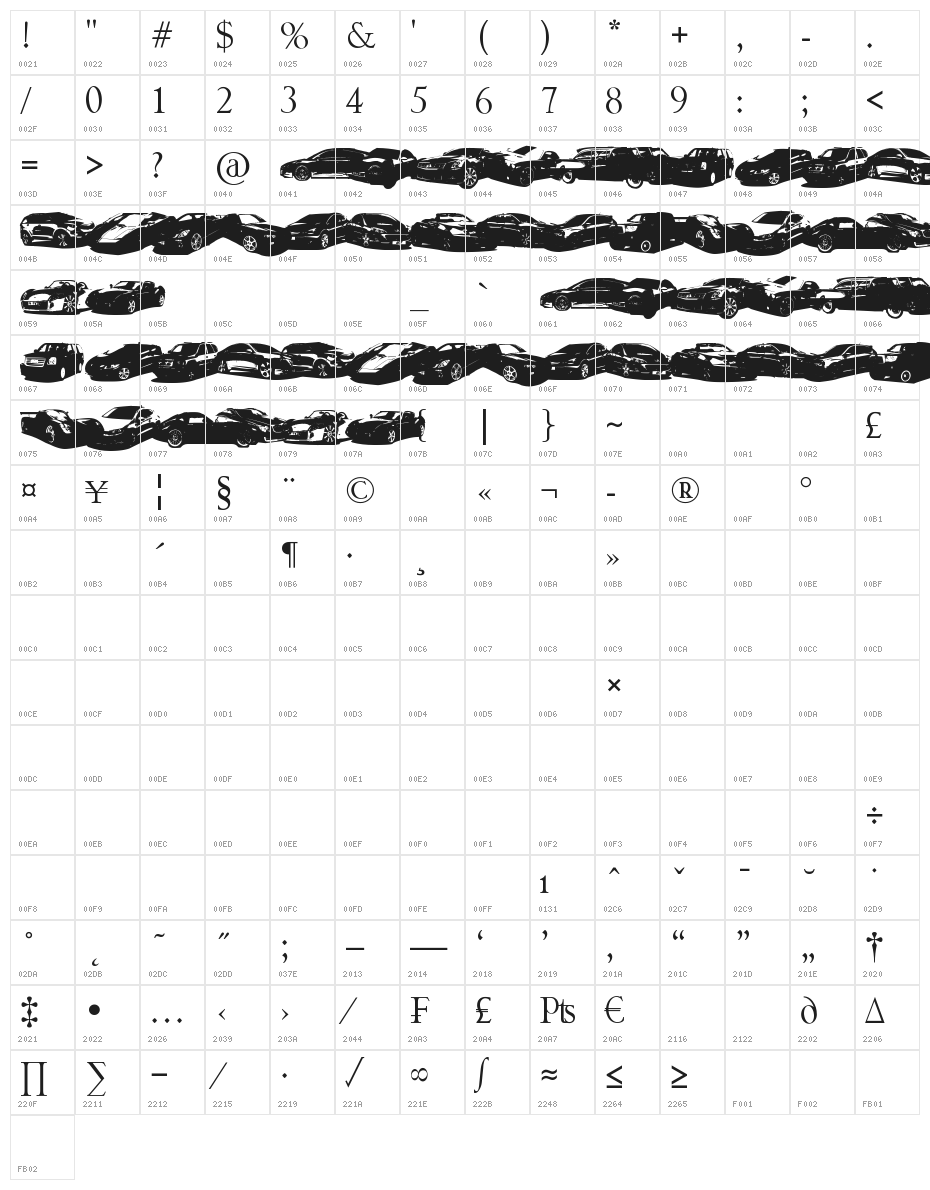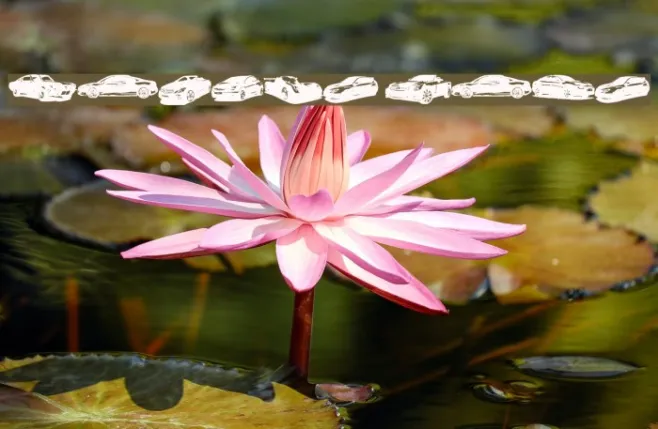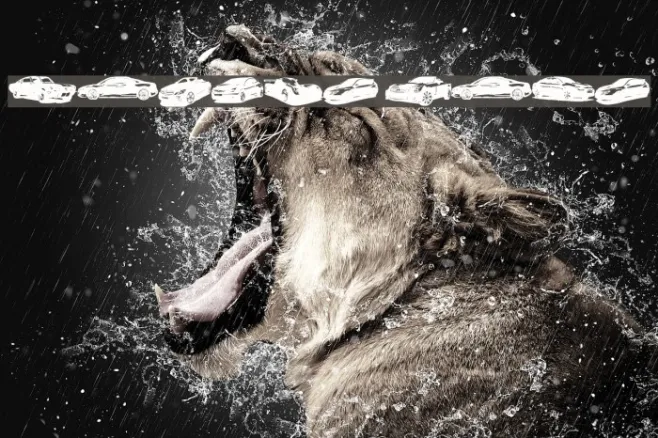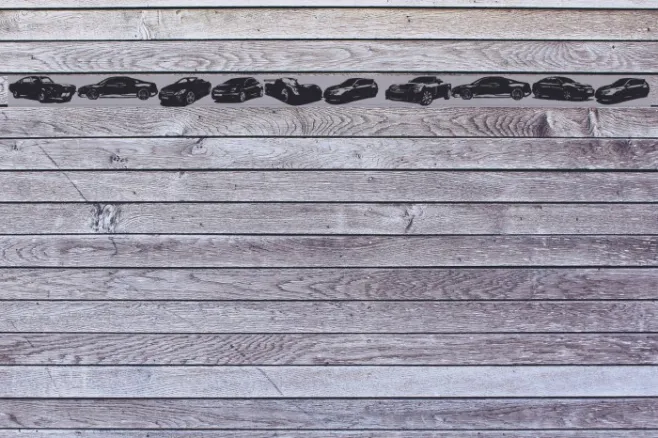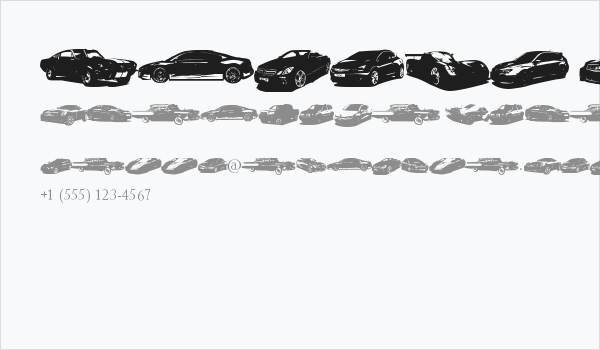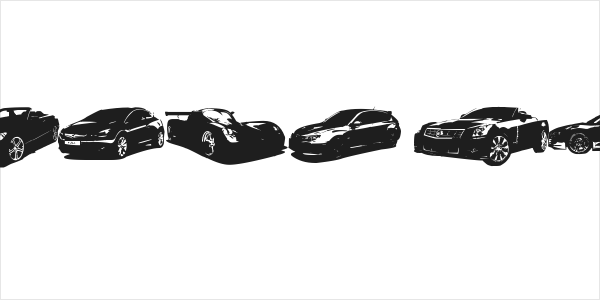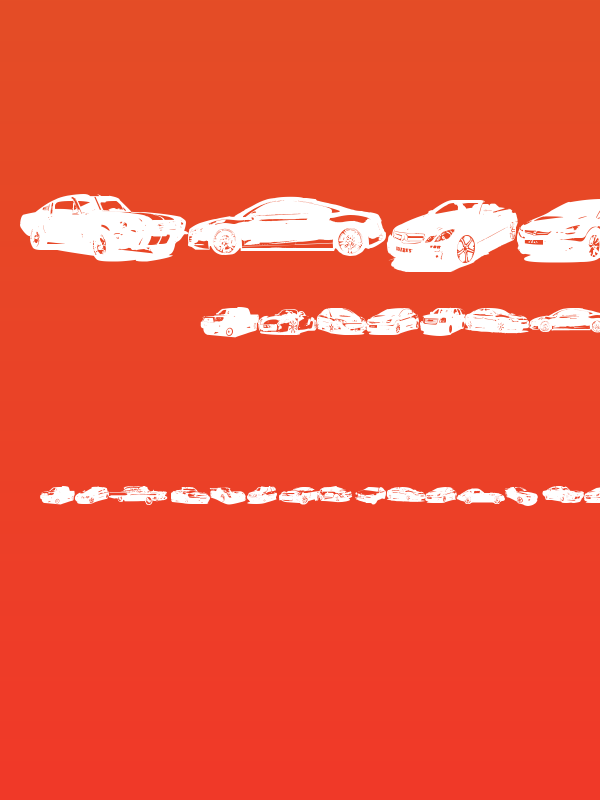
Famous Cars Font
Famous Cars Description
This font creatively integrates the silhouettes of famous cars into each letter, creating a unique and visually striking design. The uppercase and lowercase letters are formed by aligning various car shapes, giving each character a distinct automotive flair. The numbers and special characters maintain a classic serif style, providing a clear and elegant contrast to the car-themed letters. This combination of elements makes the font both playful and sophisticated, suitable for projects that aim to capture attention with a blend of novelty and tradition.
| Proposed Projects | Ideal for automotive branding, car show promotions, themed posters, and creative advertising campaigns. |